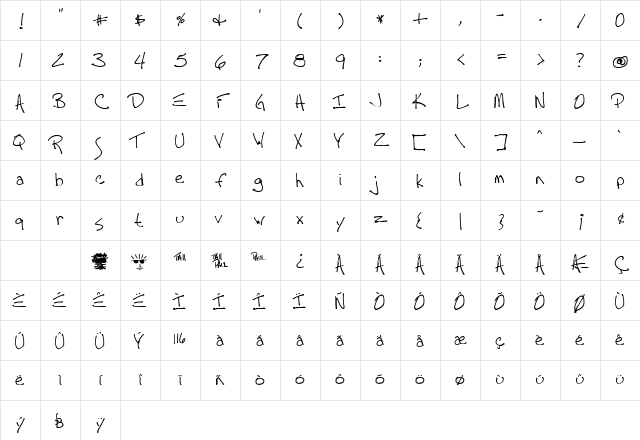
Tall Paul Regular Free Font
Tall Paul Regular
Design Context for Tall Paul
Tall Paul is a composed and adaptable typeface that performs quietly and consistently across a wide range of design contexts.